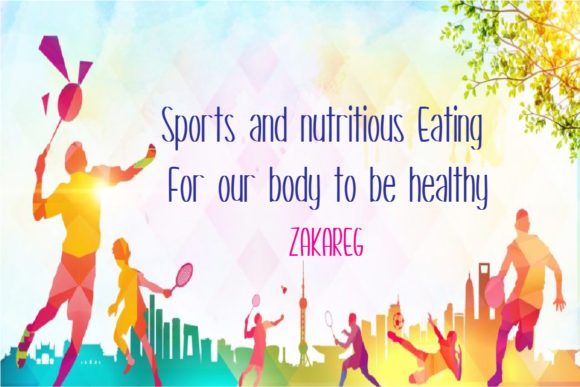
Welcome to the world of Zakareg, a font that dances with elegance and captivates with its charm. Born from the creative genius of ras, Zakareg is a handwritten font that speaks volumes with its timeless appeal and playful quirks. Whether you're a seasoned designer or a creative spirit yearning to make a statement, Zakareg is your perfect companion.
Dive into the realm of logos and branding, and let Zakareg's strokes weave a tale of uniqueness. Craft social media posts that pop with personality, and elevate your DIY projects with a touch of delightful whimsy. Zakareg is more than just a font; it's an expression of your individuality, a reflection of your style, waiting to be discovered.
Imagine your designs adorned with Zakareg's graceful curves, each letter a delicate brushstroke that speaks of artistry and finesse. Its clean lines and a hint of playfulness create a captivating harmony, inviting your audience to engage with your creations. Zakareg isn't just a font; it's an experience, a journey into the realm of visual delight.
Join the chorus of creative minds who have embraced Zakareg's magic. Let your imagination soar as you explore endless possibilities, crafting designs that resonate with your audience and leave a lasting impression. Zakareg is not just a collection of letters; it's a gateway to a world of visual enchantment, where your creativity knows no bounds.
Unlock the power of Zakareg today, and let your designs bloom with newfound brilliance. Embrace the timeless charm, the playful quirks, and the endless possibilities that await you. Zakareg is more than a font; it's an invitation to embark on a creative odyssey, to leave your mark on the world with designs that captivate and inspire.